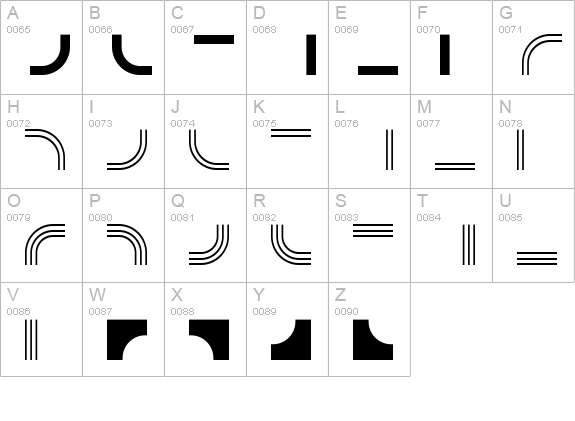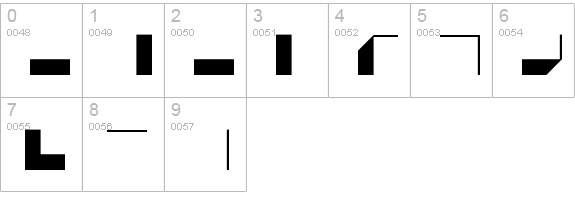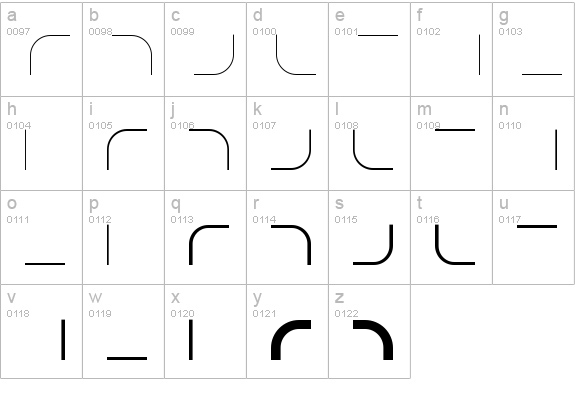
InFraction SSi Font Details
InFraction SSi is a stunningly modern and innovative font that is sure to make a bold statement in any design project. With its sleek and stylish letterforms, this font exudes a sense of sophistication and professionalism. Designed with meticulous attention to detail, InFraction SSi offers a unique blend of sharp angles and elegant curves, resulting in a truly eye-catching typeface. Its clean and crisp lines ensure readability at any size, making it suitable for both print and digital applications. But what truly sets InFraction SSi apart is its availability as a free font. Yes, you read that right – this incredible typeface is freely available to download at FontsMarket.com. This means that designers and creatives from all walks of life can now access this remarkable font without breaking the bank. Whether you're working on a logo design, a website, a poster, or any other creative endeavor, InFraction SSi will elevate your project to a whole new level. Its versatility and visual impact make it a go-to choice for both professional designers and amateurs looking to add a touch of sophistication to their work. So why wait? Discover the power of InFraction SSi today and unleash your creativity with this extraordinary font. Download it for free at FontsMarket.com and embark on a design journey like no other.